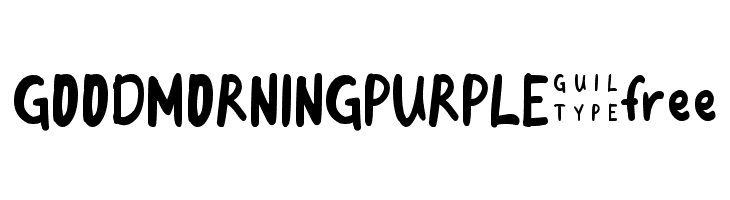
A bold, outlined font with a hand-drawn, sketch-like style.
A bold, distressed font with a rugged, hand-crafted look.
A bold, stencil-style font with geometric shapes and clear cutouts.
A bold, geometric font with tribal-inspired dot patterns.
A bold, geometric font with tribal-inspired embellishments.
A fluid, cursive font with a natural handwritten style.
A dynamic and elegant script font with flowing, cursive letterforms.
A dynamic and elegant script font with fluid, slanted letterforms.
A dynamic and elegant script font with flowing, slightly slanted letterforms.
A bold, expressive brush-style font with textured, dynamic strokes.
An elegant, flowing script font with ornate uppercase and fluid lowercase letters.
A bold, dynamic handwritten font with expressive strokes.
A bold, classic serif font with strong serifs and a traditional appearance.
Illustrative, dance-themed decorative font with vintage flair.
A bold, geometric font with circular elements and a modern, playful style.
Expressive font made of dancing human silhouettes.
Sketch-style font featuring ballet dancer illustrations as characters.
A graceful, cursive script font with flowing, interconnected letters.
A playful font with numbers styled as inflated balloons, perfect for festive designs.
A playful font with characters inside balloon shapes, perfect for festive designs.
A dynamic and elegant script font with flowing, slender letterforms.
A dynamic, handwritten-style font with a playful and energetic character.
A lively handwritten font with fluid strokes and dynamic character.
A dynamic handwritten font with fluid, expressive strokes and a playful style.
A dynamic handwritten font with fluid strokes and a casual elegance.
A bold, playful font with a hand-drawn, friendly appearance.
A bold, expressive brush-style font with a dynamic, artistic flair.
A playful, rounded, and bold font with a friendly and modern appearance.
A bold, rounded font with a playful and friendly style.
A playful, rounded font with a bold and friendly appearance.
A bold, rounded font with a playful and friendly appearance.
A playful, rounded font with a bold and friendly appearance.
A playful, rounded font with bold, uniform strokes and smooth curves.
A playful, rounded font with bold, smooth curves and a modern, informal style.